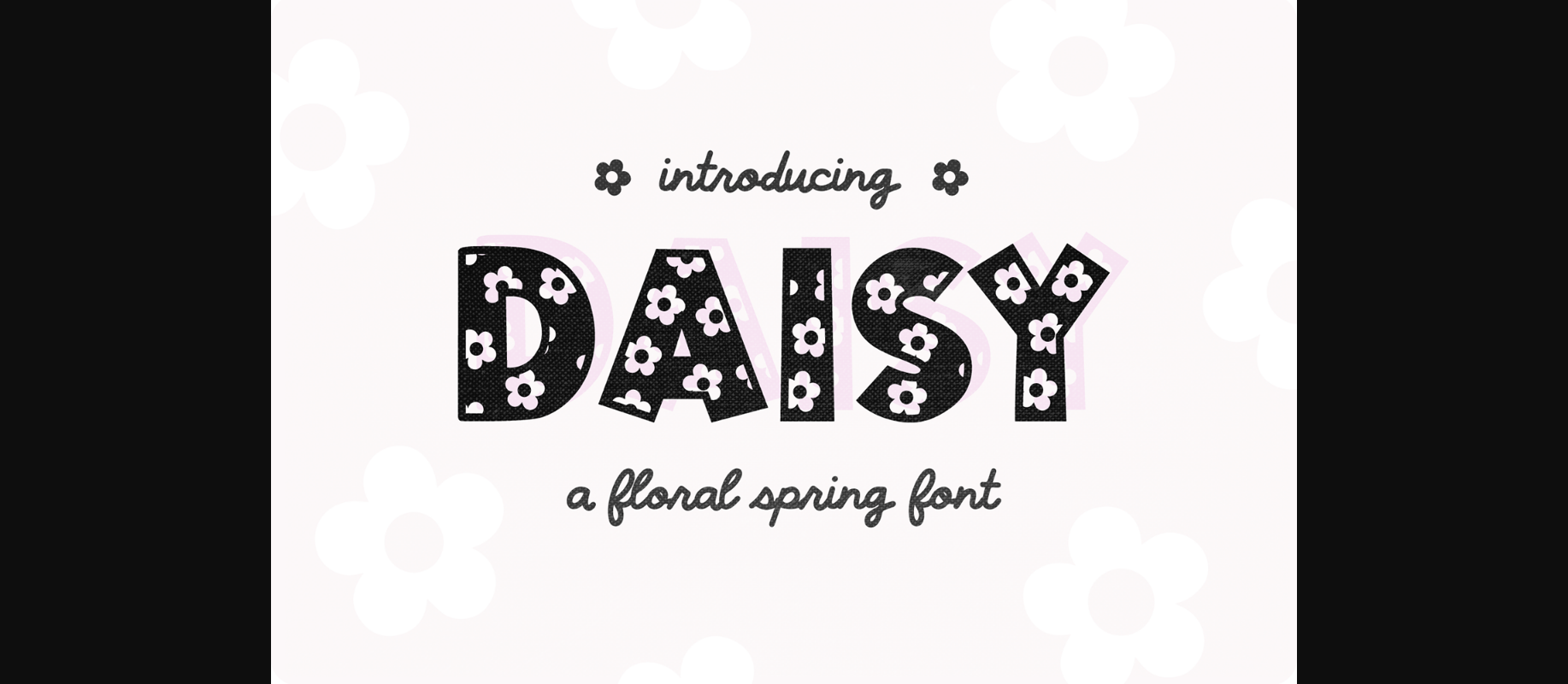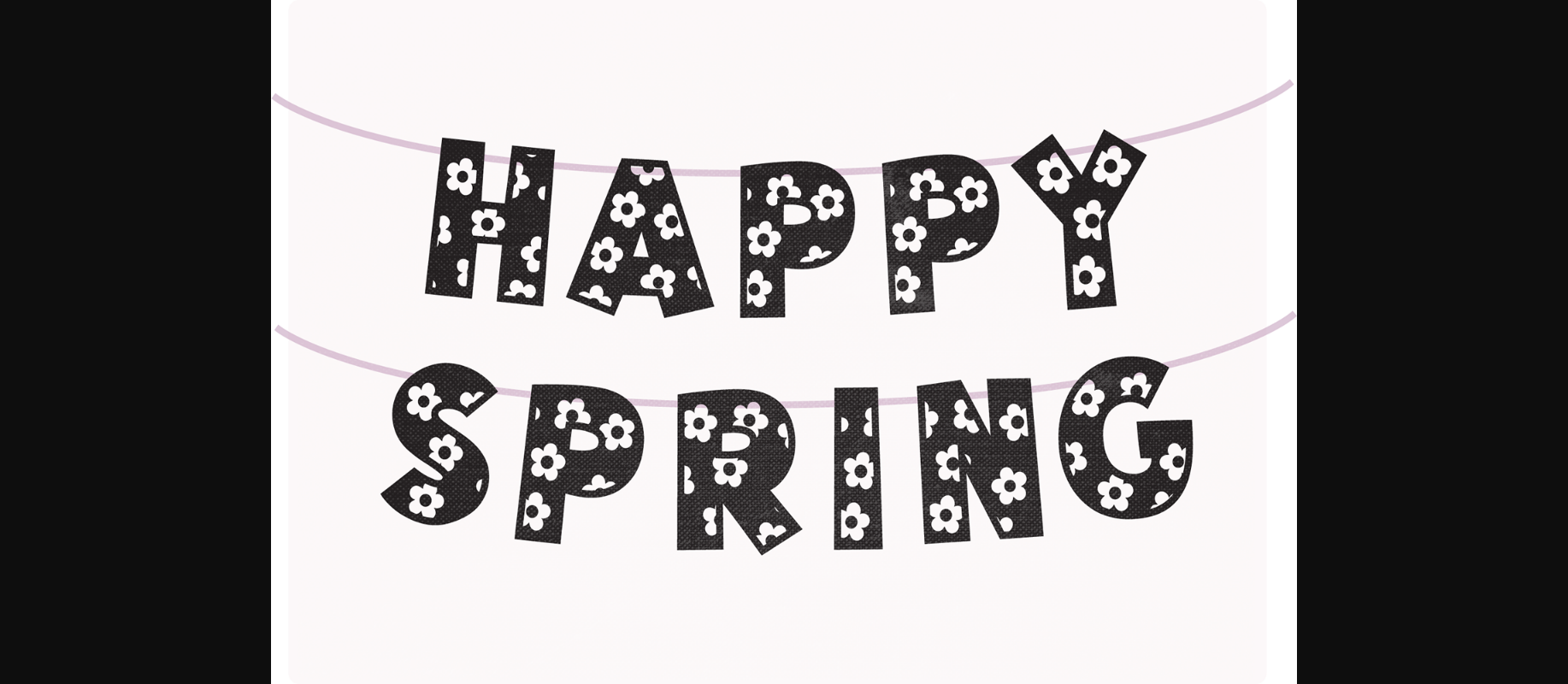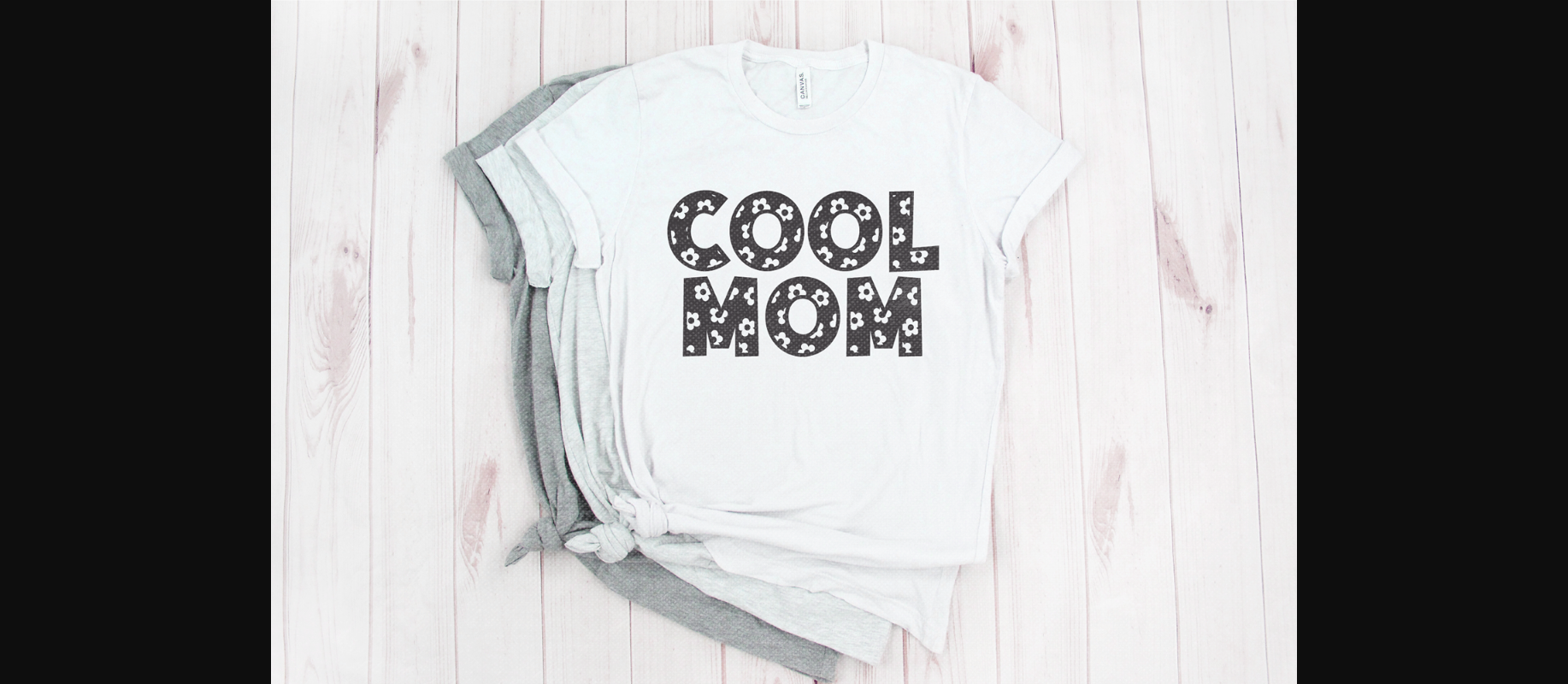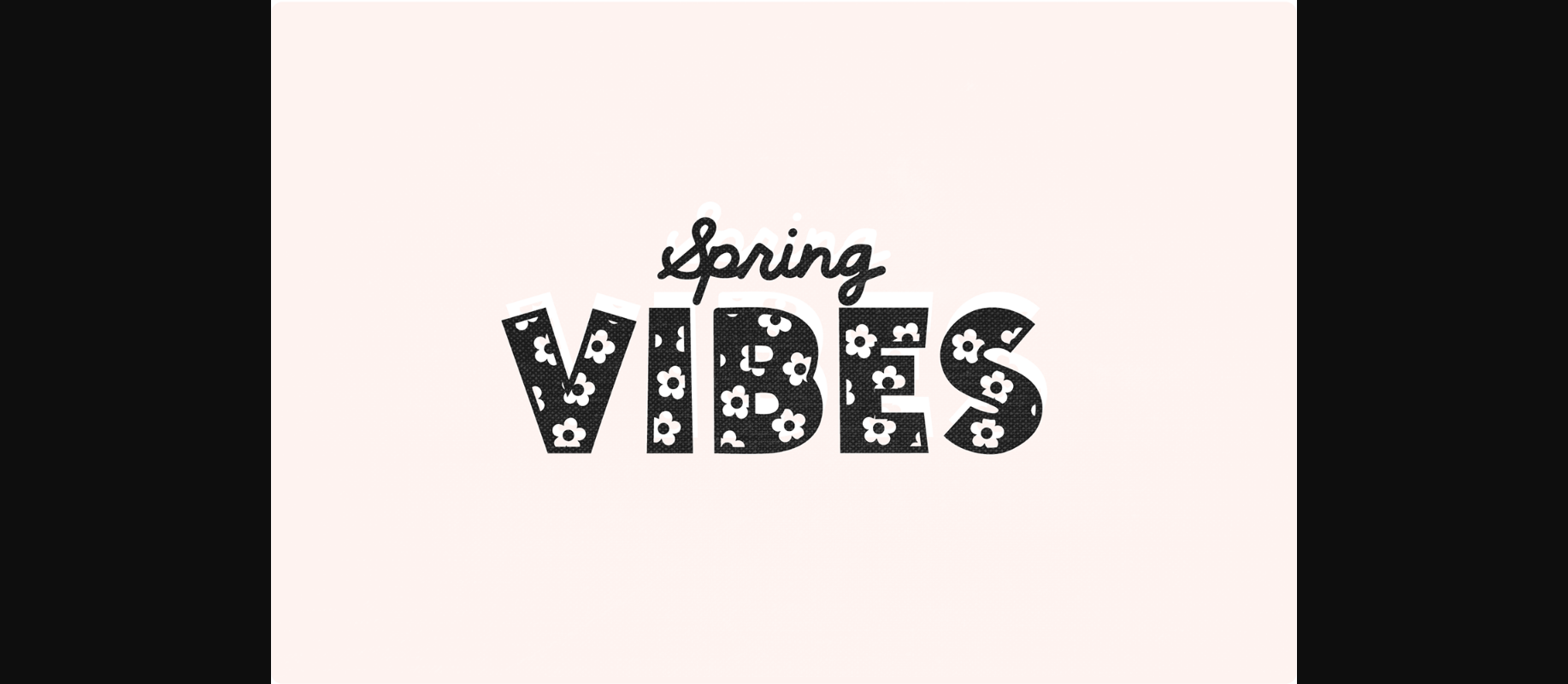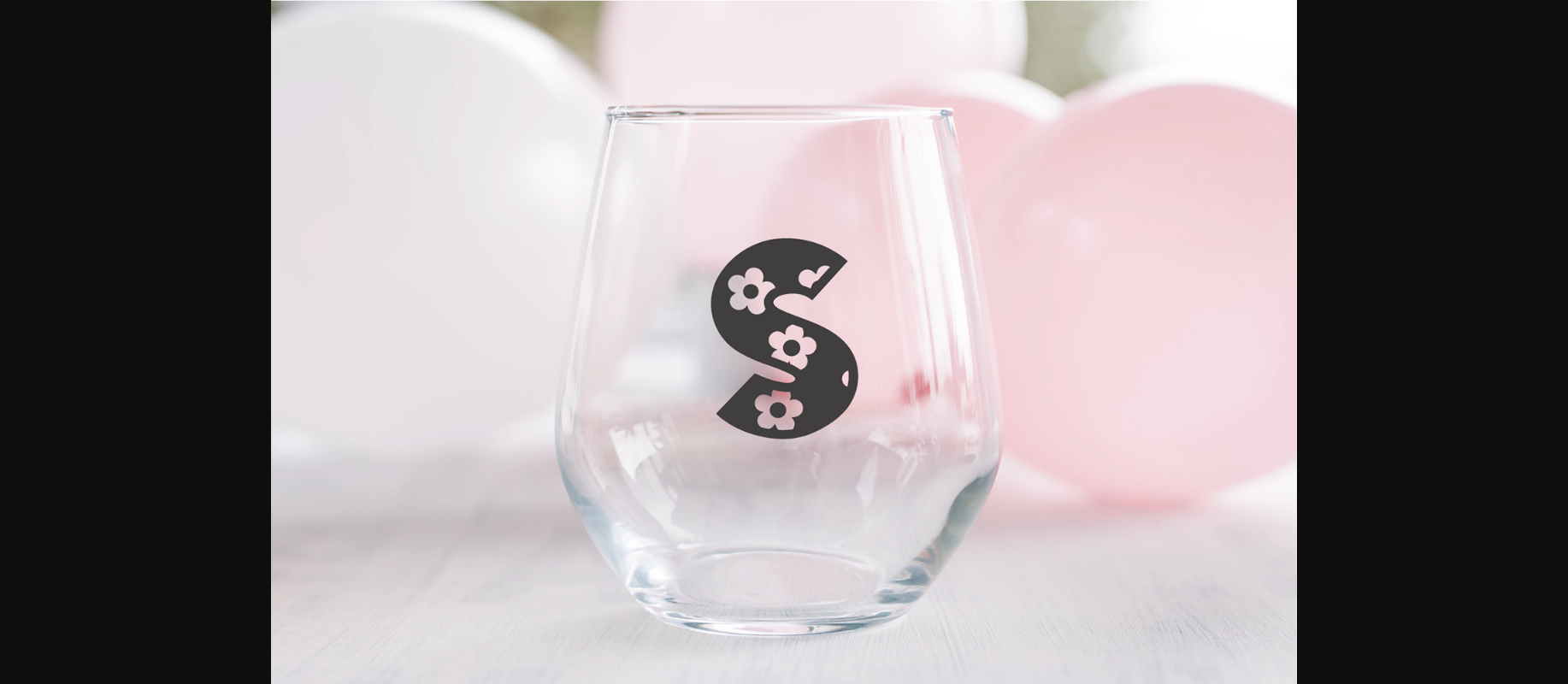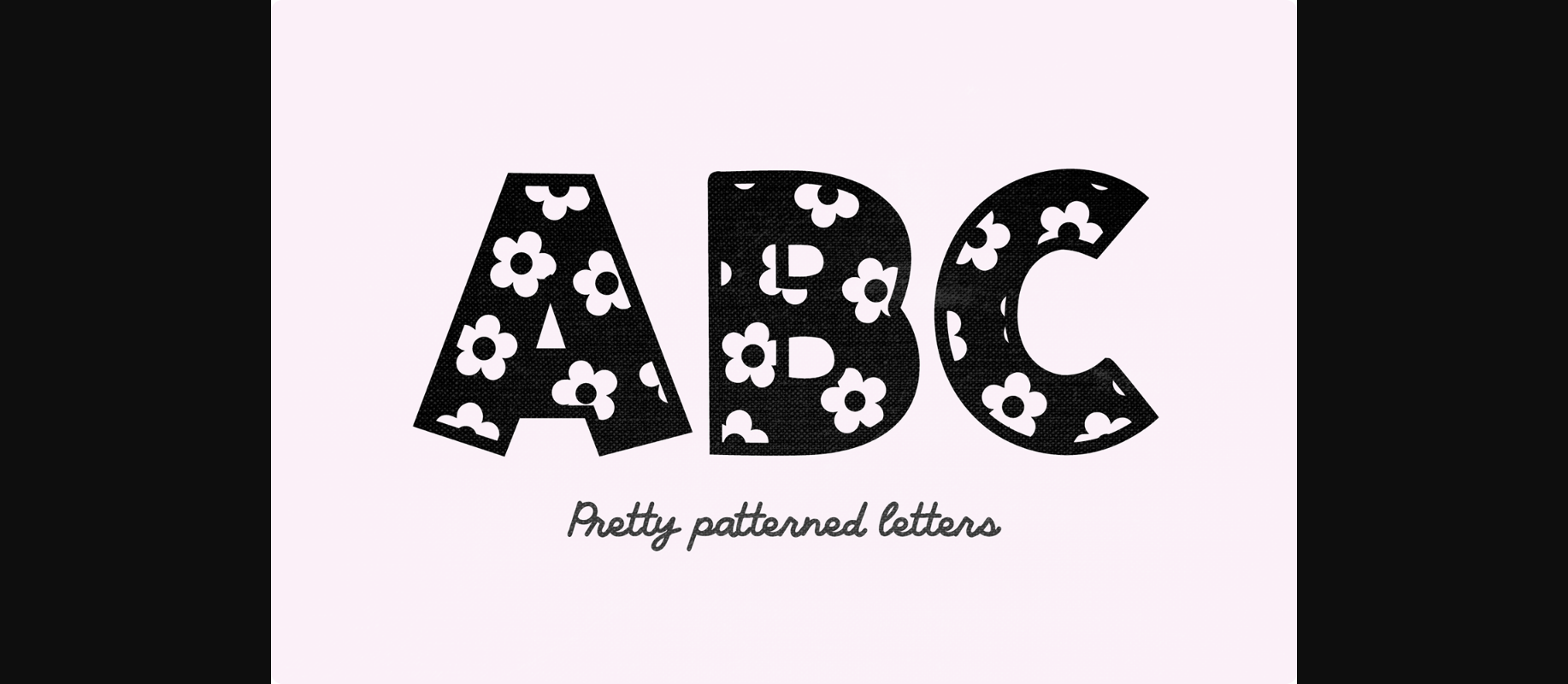
HomeDecorative FontsDaisy Font Decorative Fonts Daisy Font FacebookXPinterestWhatsApp 1 of 8 ... Daisy Font Poster 2... Daisy Font Poster 3... Daisy Font Poster 4... Daisy Font Poster 5... Daisy Font Poster 6... Daisy Font Poster 7... Daisy Font Poster 8... About Daisy Font Daisy is a bold daisy-patterned flower font. It will spruce up any spring project. Use it on craft projects, home decor, signs, and more! DOWNLOAD NOW People also explored Autumn Font Bubble Valentine Font Nothing Font Mersbac Mastina Font Broolia Monogram Font Vessia Script Font Rawks Dream Font Goldfish Font Blackstone Story Font 340 0 TagsDaisyDaisy Font Previous articleDino Shadow FontNext articleVintage Monograms E Font LEAVE A REPLY Cancel reply Comment: Please enter your comment! Name:* Please enter your name here Email:* You have entered an incorrect email address! Please enter your email address here Website: Save my name, email, and website in this browser for the next time I comment. Personal Use Free Arnitta Callina Personal Use Free Read more about this font Time for Presents Personal Use Free Read more about this font Bettari Personal Use Free Read more about this font Blast Personal Use Free Read more about this font BLOG Free Fonts Risk: Why Free Fonts Can Be Dangerous for Designers Free Fonts Risk: Why Free Fonts Can Be Dangerous for Designers Using free fonts is a common practice in web and graphic design. However, the... Using Fonts in Digital Marketing: Tips to Strengthen Your Brand Identity The 10 Best Handwriting Fonts to Add Personality to Your Designs 5 Fonts That Will Dominate Design Trends in 2026